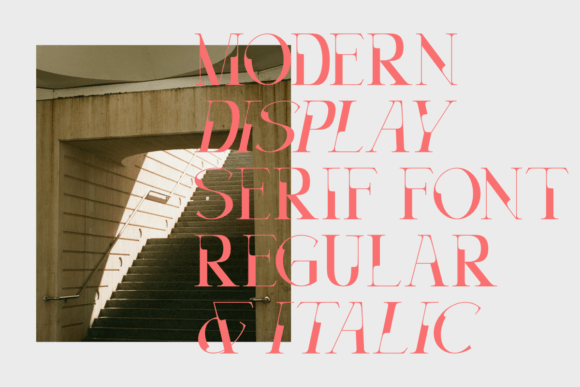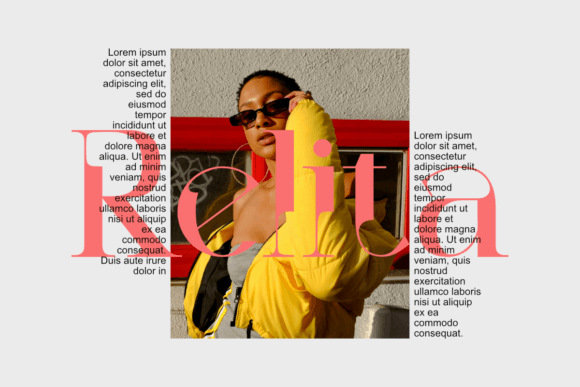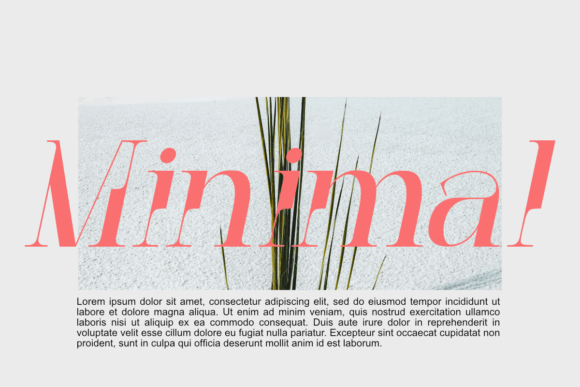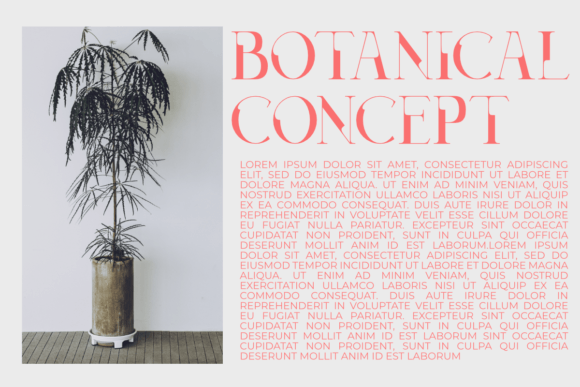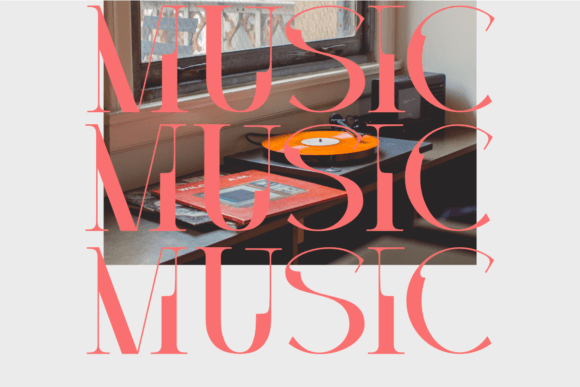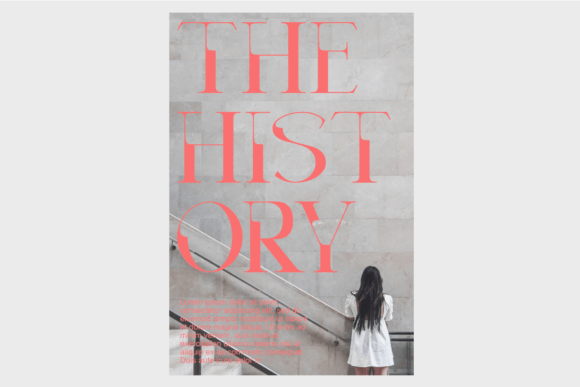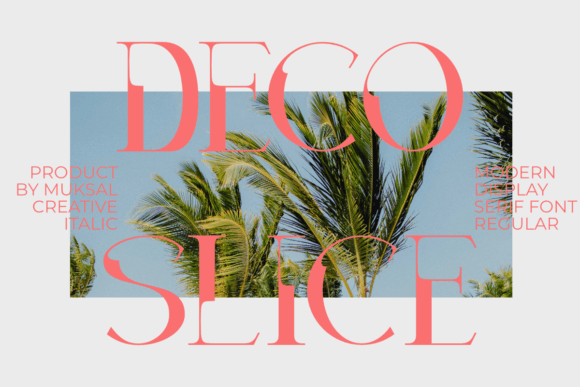
Introducing Decoslice Font: The Ultimate Art Deco-Inspired Typeface
In the world of typography, fonts play a crucial role in defining the visual identity of a brand, product, or creative project. With the ever-evolving landscape of design, it’s essential to stay ahead of the curve with fresh and innovative typefaces. One such font that has been making waves in the design community is Decoslice – a modern typeface that seamlessly blends Art Deco aesthetics with sharp geometric cuts.
The Art Deco Revival: A Brief History
Art Deco, a style that originated in the 1920s, is characterized by its luxurious, geometric, and ornate elements. This iconic style influenced various art forms, including architecture, fashion, and graphic design. Fast-forward to the present day, and we see a resurgence of Art Deco-inspired designs, thanks to its timeless appeal and versatility. Decoslice Font is a prime example of this revival, injecting a modern twist into the classic Art Deco style.
Decoslice: A Unique Fusion of Retro and Futuristic Elements
Decoslice is more than just a font – it’s an experience. This modern typeface boasts unique letterforms and distinctive sliced details, which set it apart from other fonts in the market. The result is an elegant fusion of retro and futuristic elements, perfect for designs that demand a bold and avant-garde touch. Whether you’re working on a branding project, poster design, or any other creative endeavor, Decoslice is sure to make a statement.
Key Features of Decoslice Font
- Art Deco Aesthetics: Decoslice’s design is deeply rooted in the Art Deco style, featuring geometric shapes, clean lines, and ornate details.
- Sharp Geometric Cuts: The font’s sharp cuts add a touch of modernity, giving it a fresh and dynamic feel.
- Unique Letterforms: Each letterform in Decoslice is carefully crafted to showcase a distinctive sliced effect, adding an extra layer of visual interest.
- Elegant Fusion: Decoslice seamlessly blends retro and futuristic elements, making it perfect for designs that require a bold and avant-garde approach.
Decoslice Font is a versatile typeface that caters to the needs of designers and crafters alike. Its strong and dynamic character makes it ideal for:
- Branding: Use Decoslice to create a lasting impression with your brand’s visual identity.
- Posters: Add a touch of sophistication and glamour to your poster designs with Decoslice’s elegant letterforms.
- Creative Projects: Decoslice is perfect for any creative project that seeks to stand out with a striking style, from packaging design to advertising.
Why Choose Decoslice Font?
In a sea of fonts, Decoslice stands out for its unique blend of Art Deco aesthetics and modern geometric cuts. Here are just a few reasons why designers and crafters are falling in love with Decoslice:
- Unique Style: Decoslice offers a fresh and distinctive style that will elevate your designs and set you apart from the competition.
- Versatility: This font is suitable for a wide range of design applications, from digital projects to print materials.
- Ease of Use: Decoslice is easy to use and pairs well with a variety of fonts, making it a versatile addition to your font library.
Decoslice Font is a game-changer for designers and crafters looking to add a touch of sophistication and glamour to their projects. With its unique blend of Art Deco aesthetics and sharp geometric cuts, Decoslice offers a bold and avant-garde approach to typography. Whether you’re working on a branding project, poster design, or any other creative endeavor, Decoslice is the perfect choice for those who seek to stand out with a striking style.